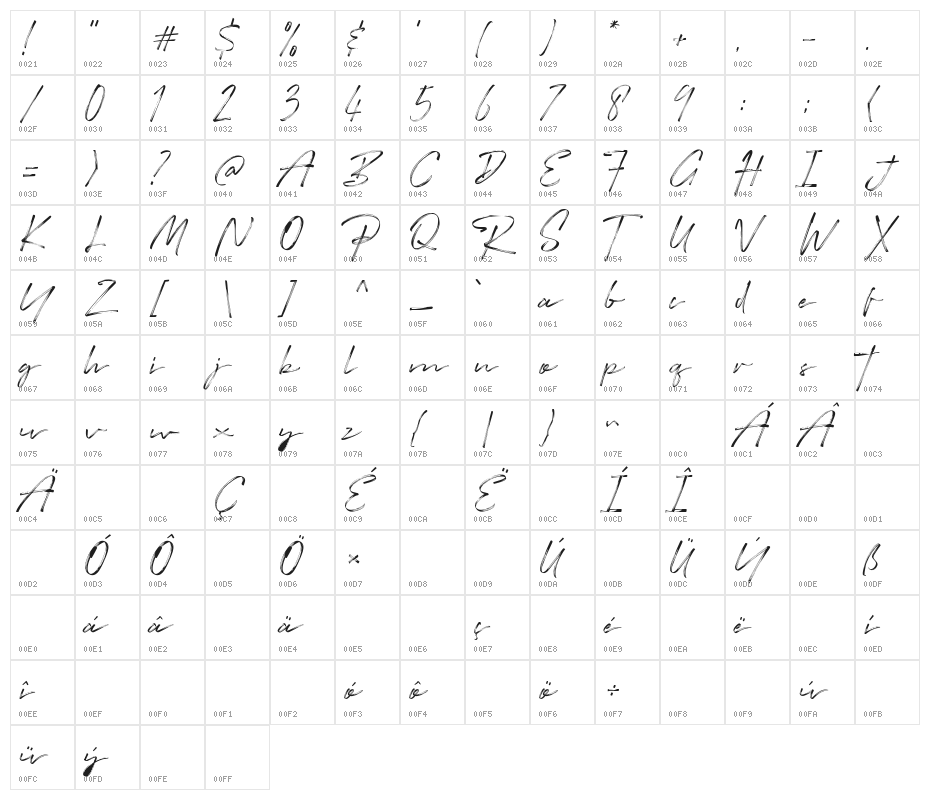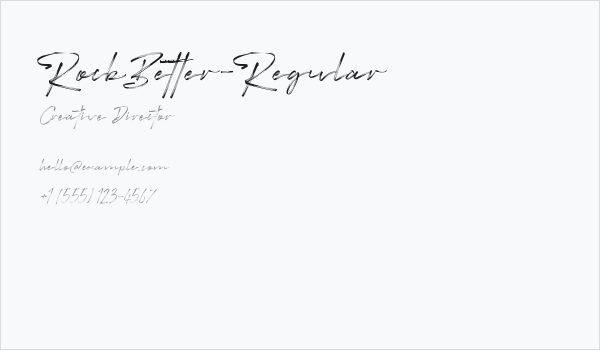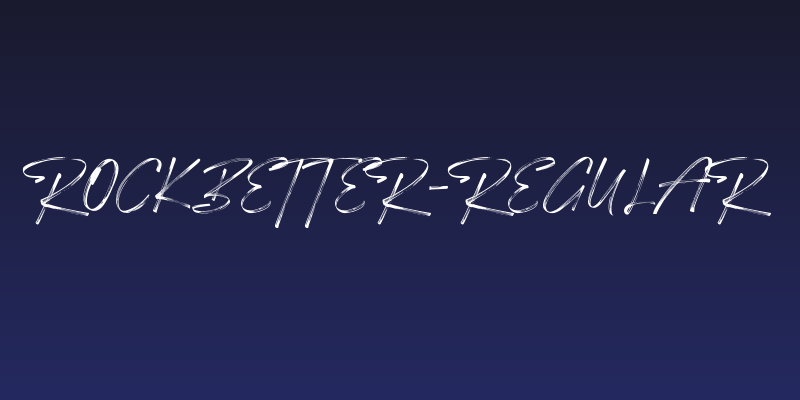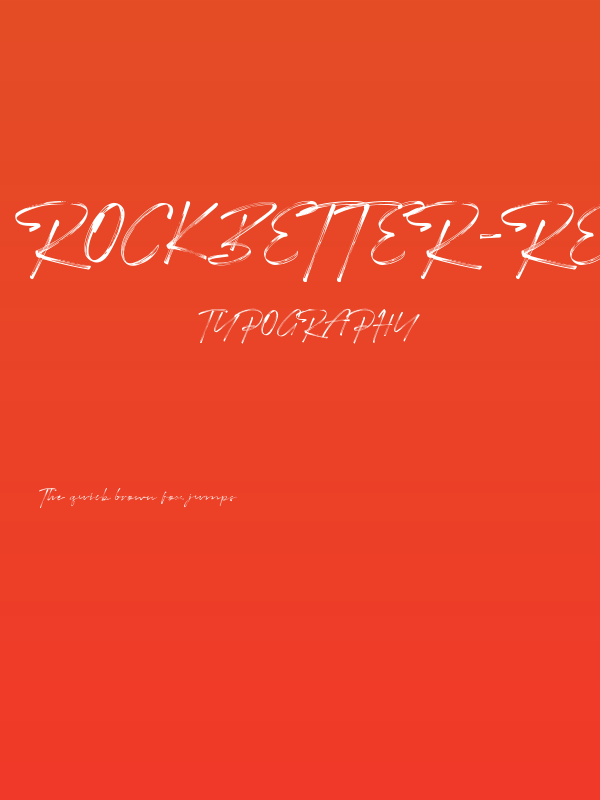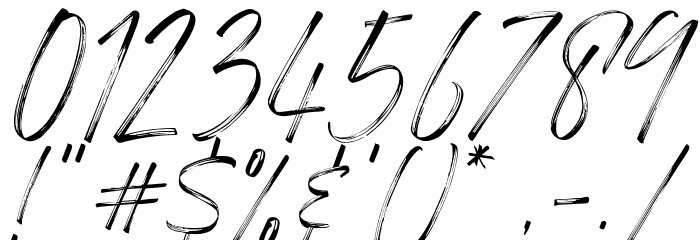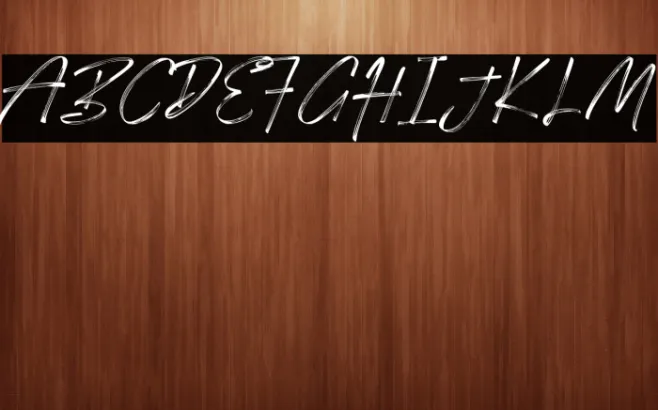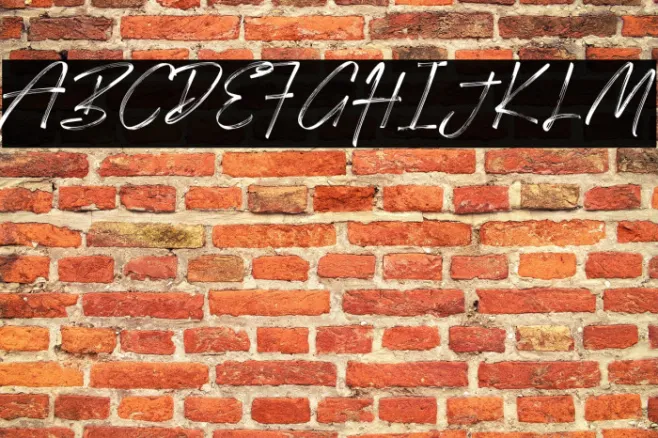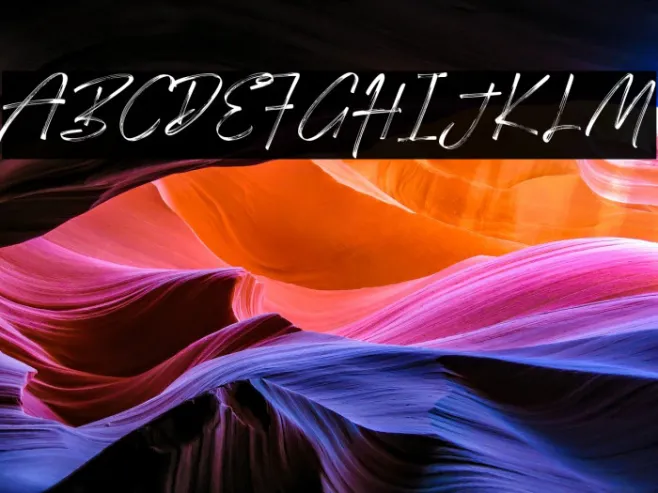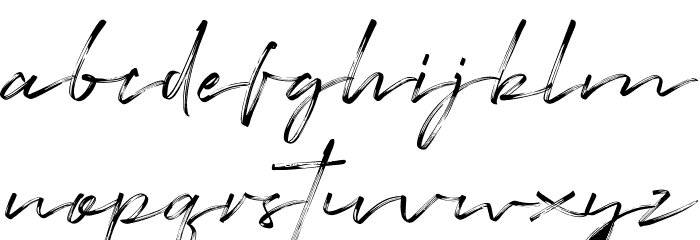
RockBetter-Regular Font
RockBetter-Regular Description
This font features an expressive and dynamic script style, characterized by its fluid, handwritten appearance. The letters are elegantly connected, with a natural flow that mimics the movement of a brush or pen. The uppercase letters are bold and prominent, while the lowercase letters maintain a consistent rhythm and balance. The numerals and special characters complement the overall style, adding to its versatility. The strokes vary in thickness, creating a sense of movement and energy. This font is well-suited for projects that require a personal, artistic touch, such as invitations, branding, and creative designs.
| Use Case | Logos, Headlines, Creative designs |
| Proposed Projects | Ideal for invitations, branding, artistic designs, and creative projects. |